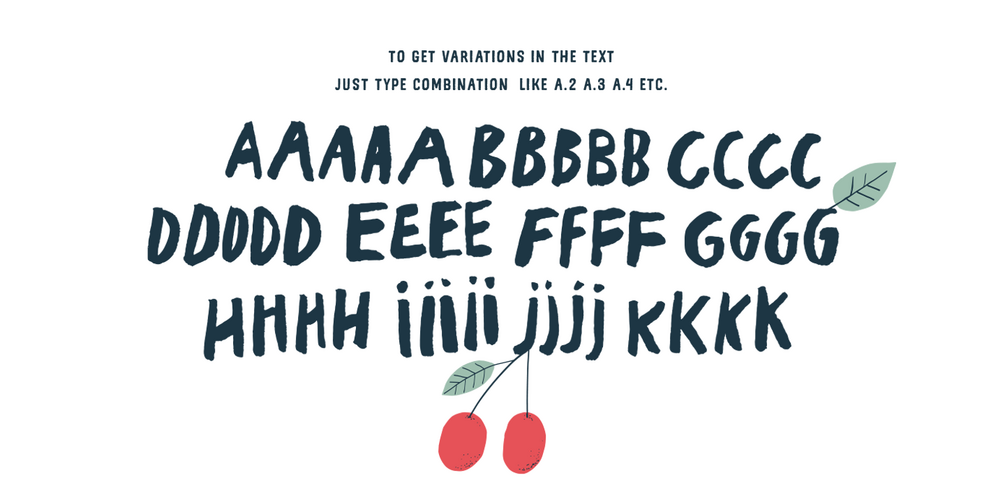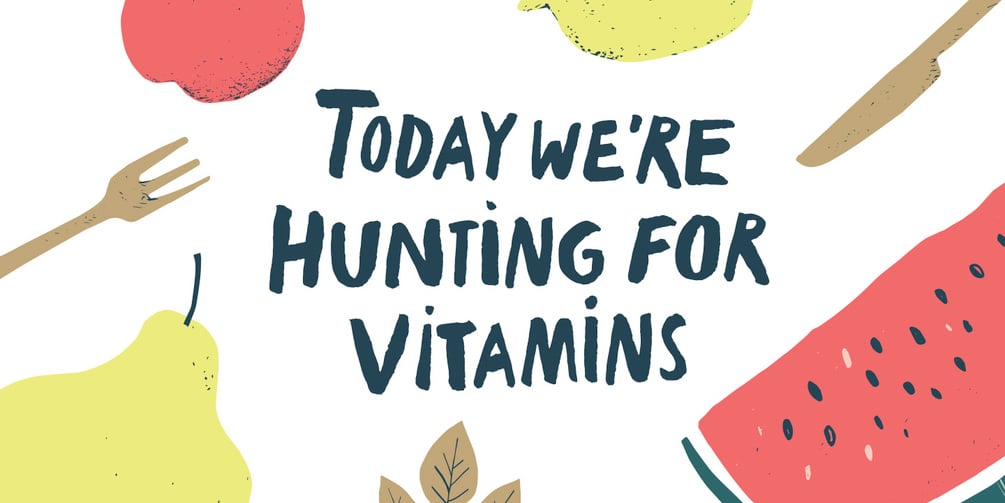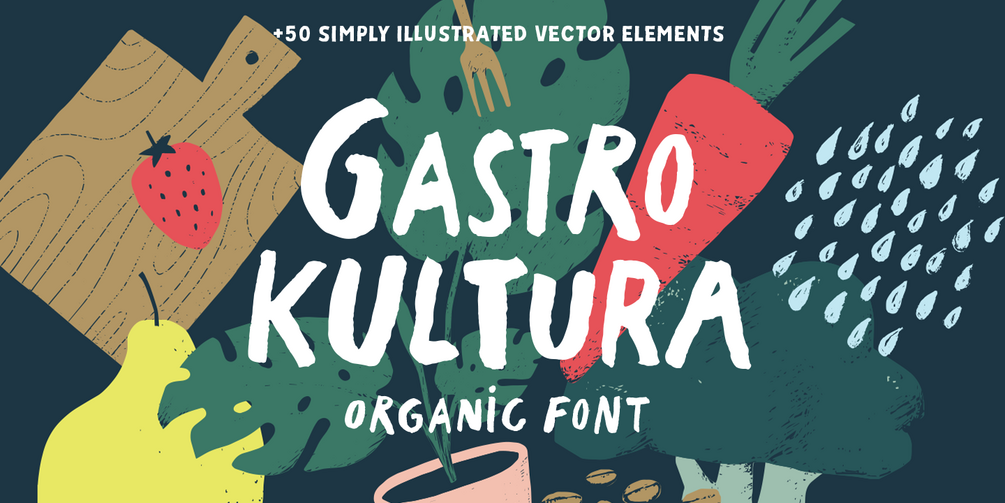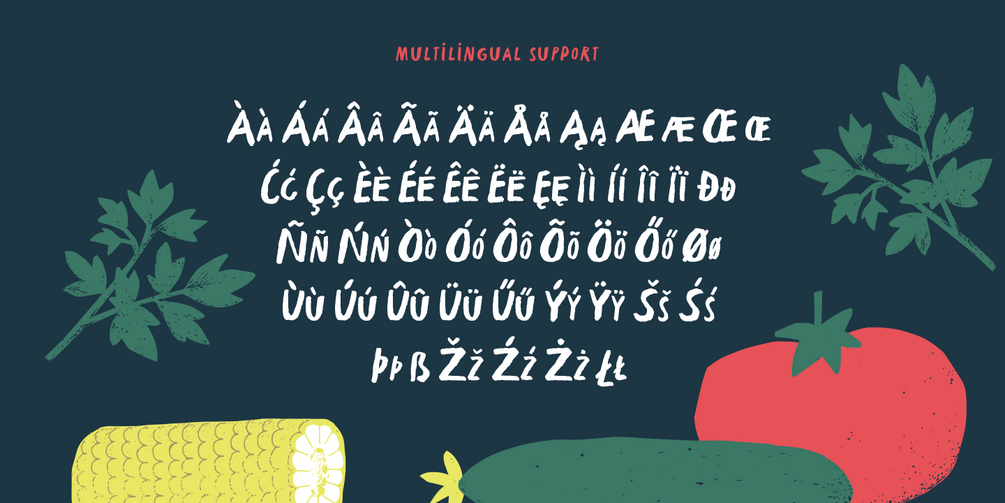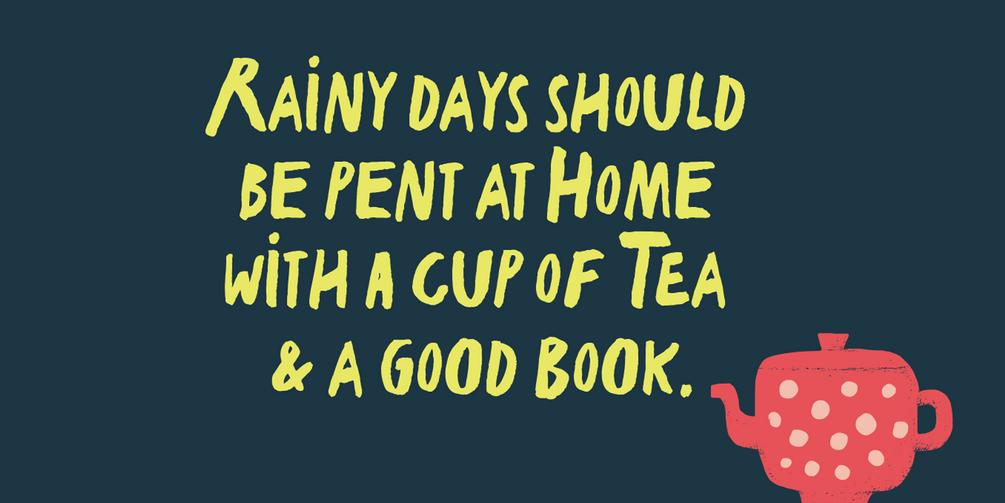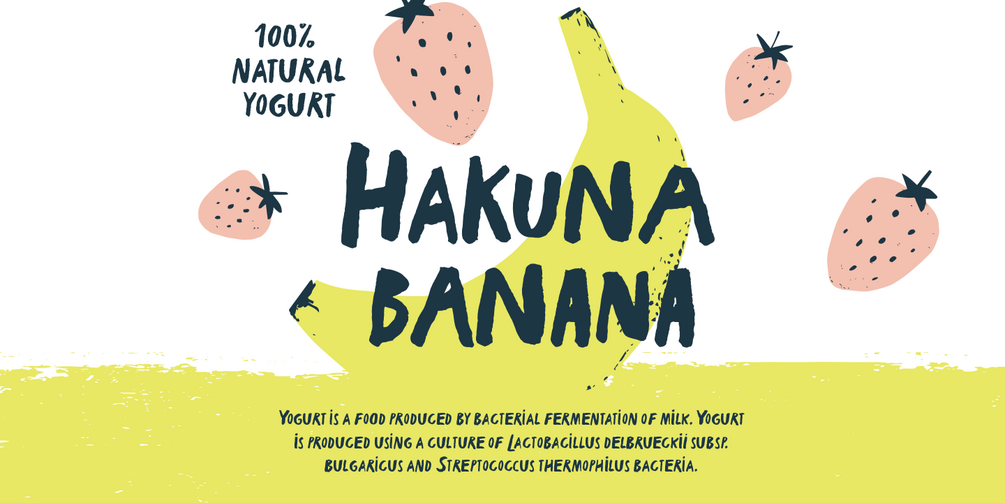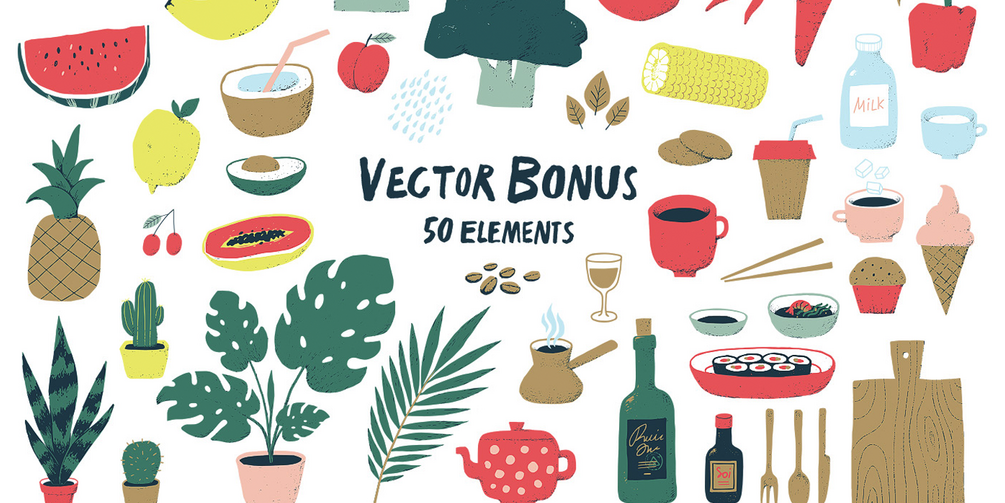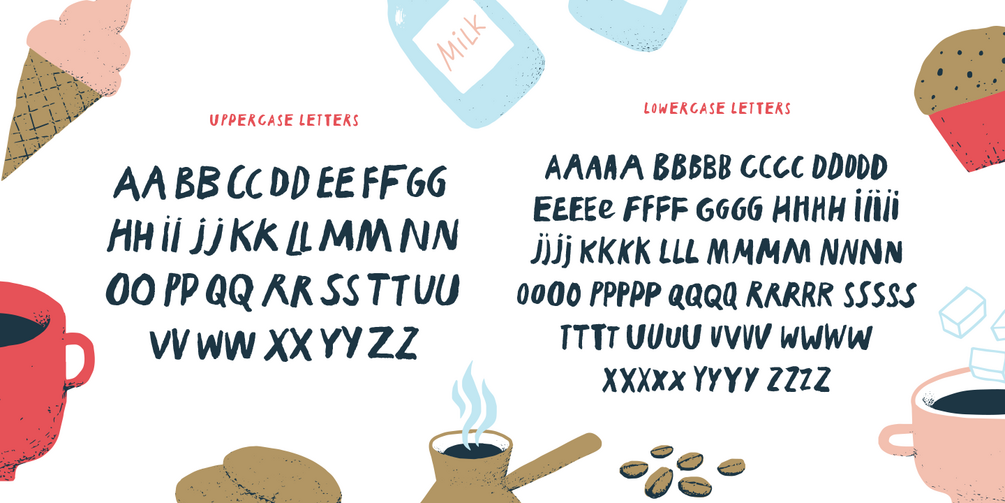
Gastro Kultura Font + Vector Bonus
This font captures the feeling of taking a brush and writing freely — without worrying about precision or making multiple attempts. There’s no pursuit of perfection or strict rules; each letter feels spontaneous and playful. It evokes a celebration of life, where everyone is happy regardless of how they appear.
This typeface is perfect for:
• Large headlines
• Grocery store and coffee shop branding
• Food and cosmetics packaging with a natural, handmade feel
• Book covers
• Children’s products
• And much more
Thanks to the many alternate characters, you can avoid repetition — making your text look more like custom lettering than a standard font. Just use combinations like a.2, a.3, a.4, b.2, b.3, b.4, etc.
Multilingual support (Western European characters included)
Supported languages: Danish, Dutch, English, Estonian, Faroese, Finnish, French, German, Hungarian, Icelandic, Italian, Norwegian, Polish, Portuguese, Romanian, Slovene, Spanish, Swedish, Turkish.